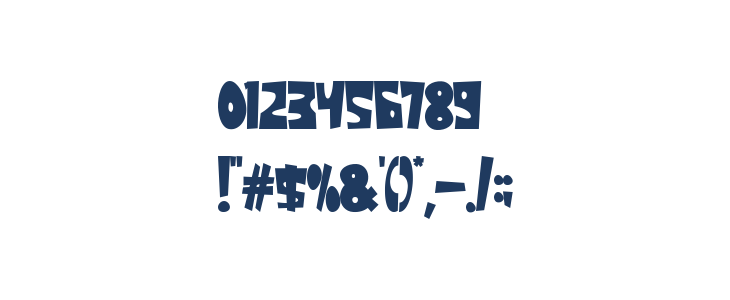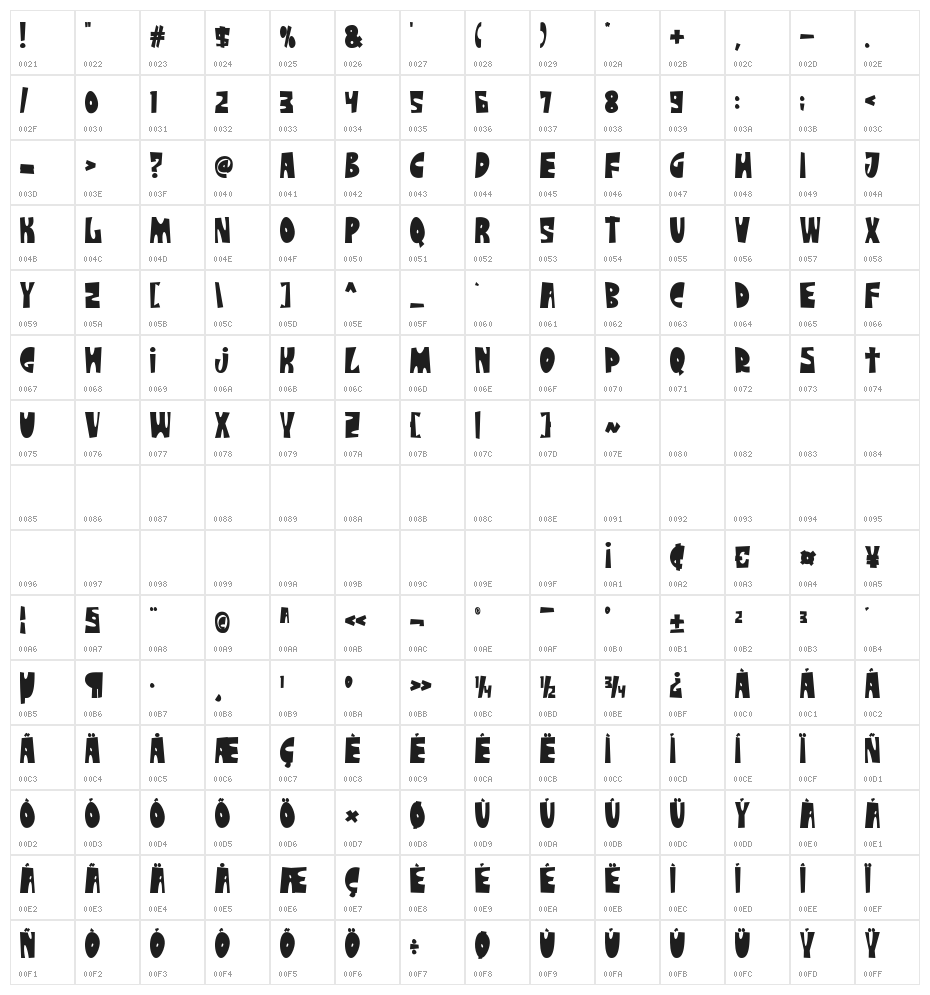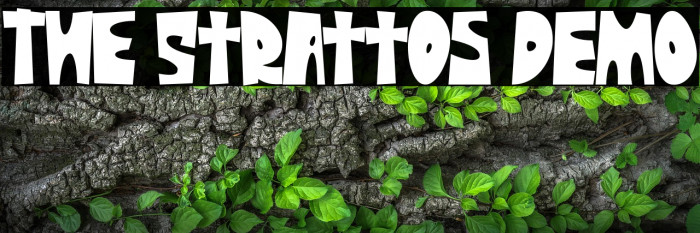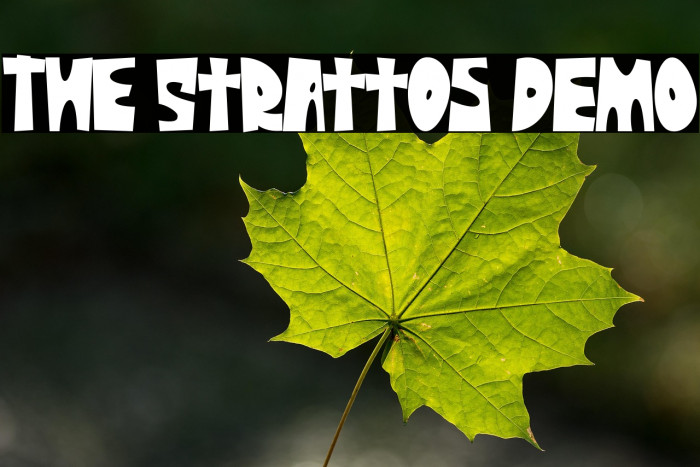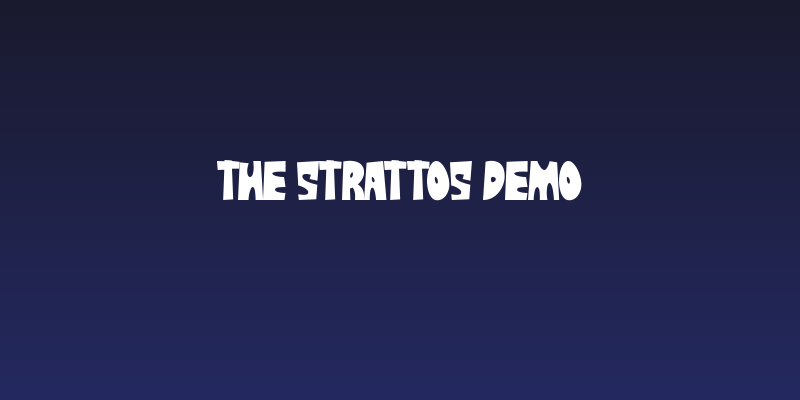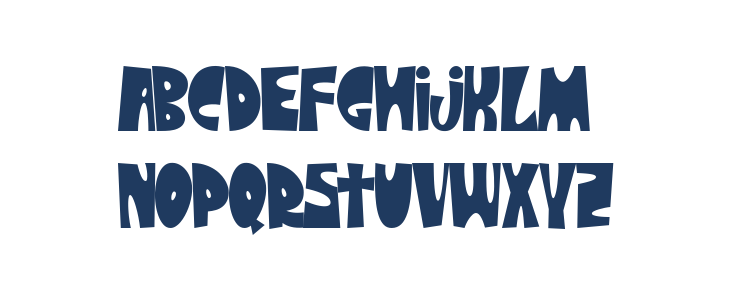
The Strattos DEMO Font
The Strattos DEMO Description
This font features a bold and playful design with exaggerated curves and angles, creating a whimsical and eye-catching appearance. The characters are uniquely shaped, with varying widths and heights, giving it a dynamic and energetic feel. The uppercase and lowercase letters maintain a consistent style, while the numbers and special characters complement the overall aesthetic. Its boldness and distinctive style make it ideal for projects that require a fun and engaging visual impact.
| Proposed Projects | Perfect for children's books, playful branding, posters, and creative event invitations. |